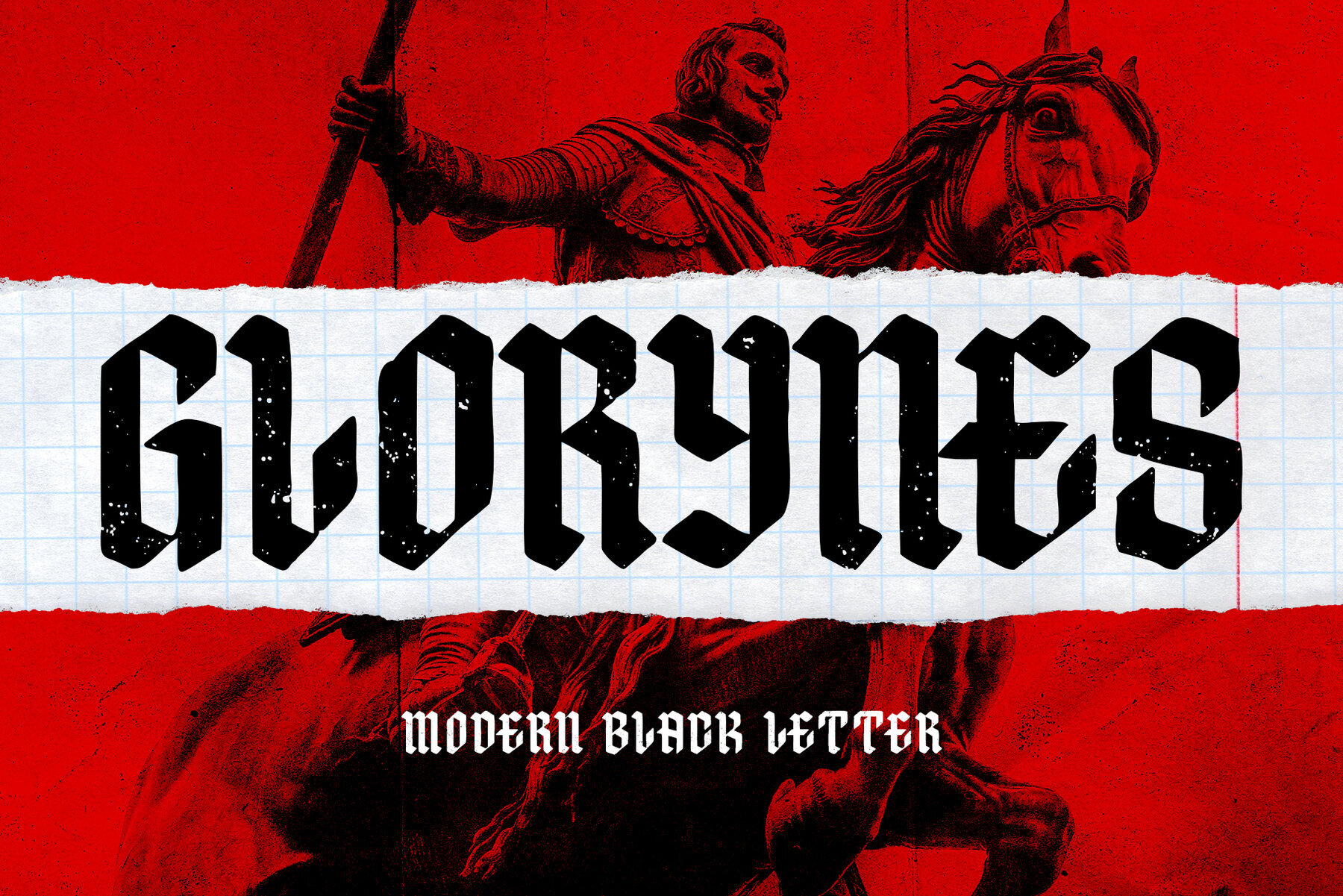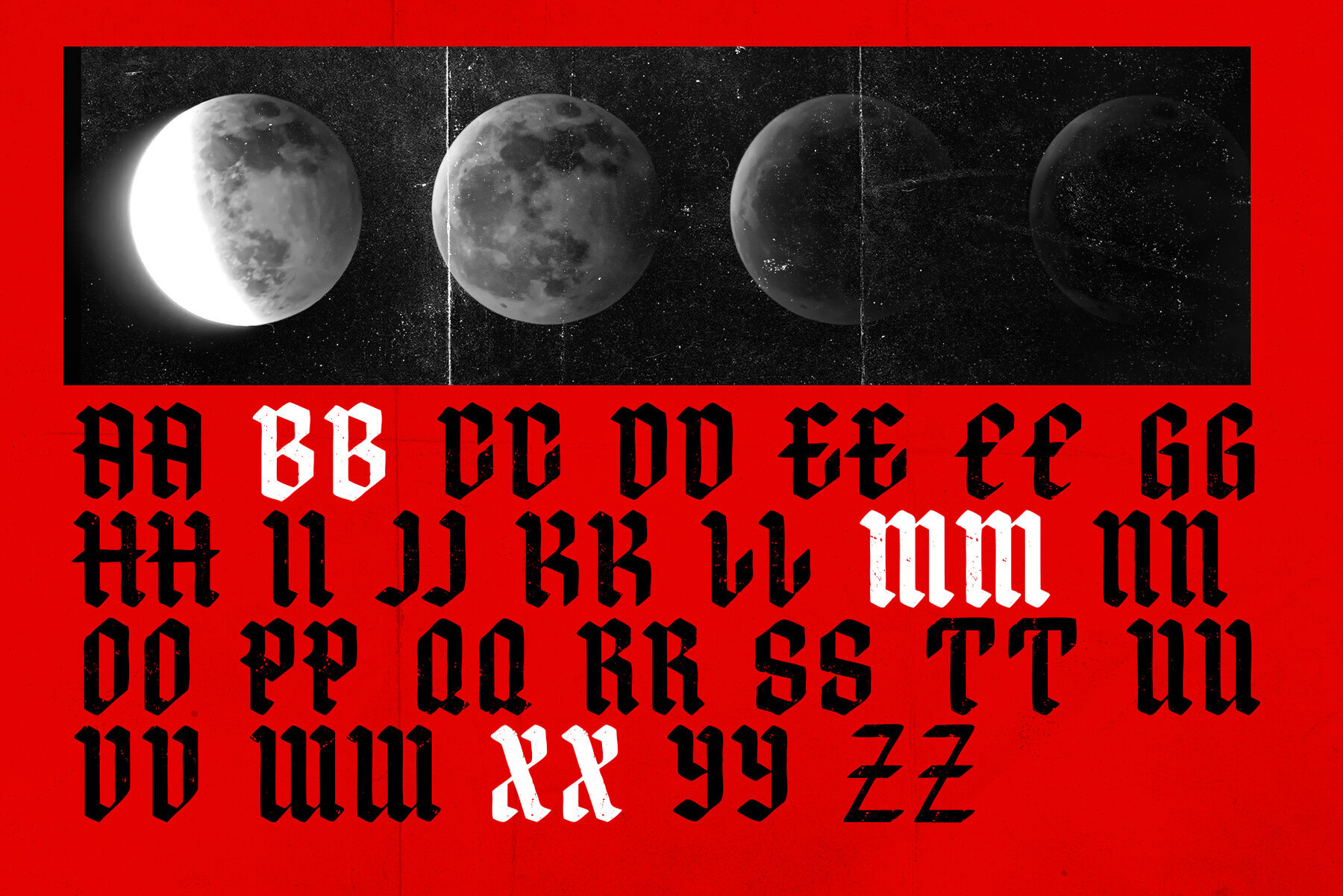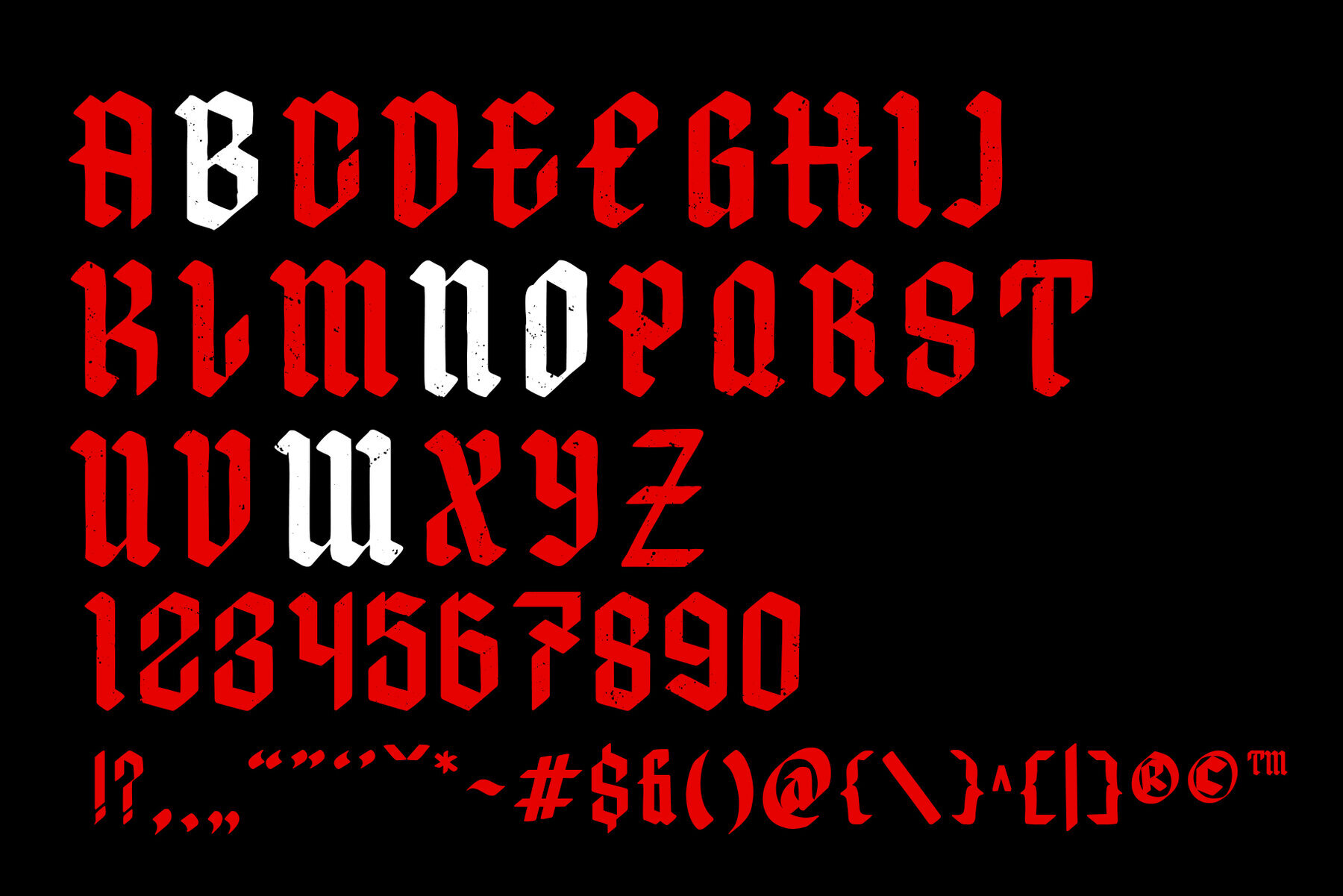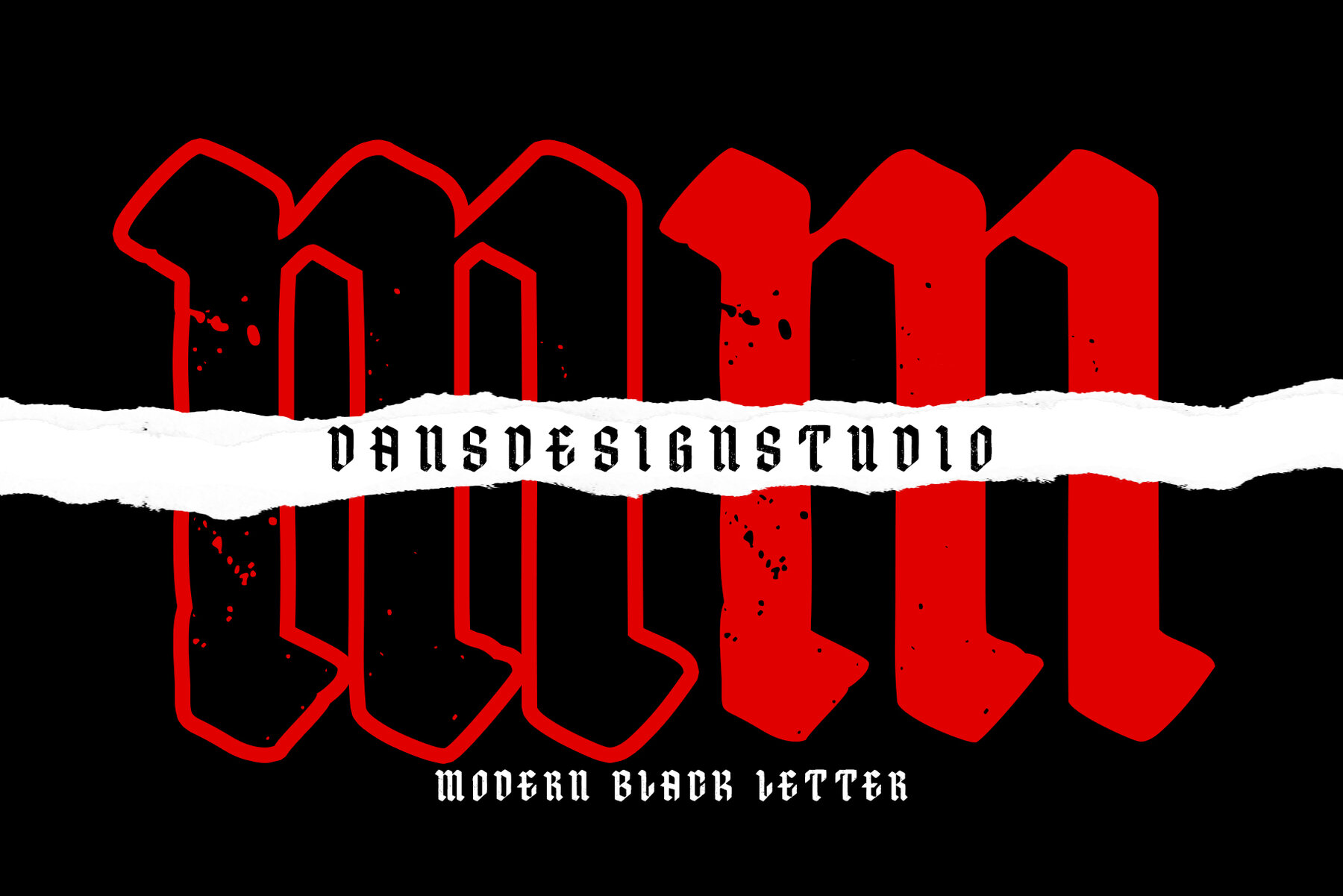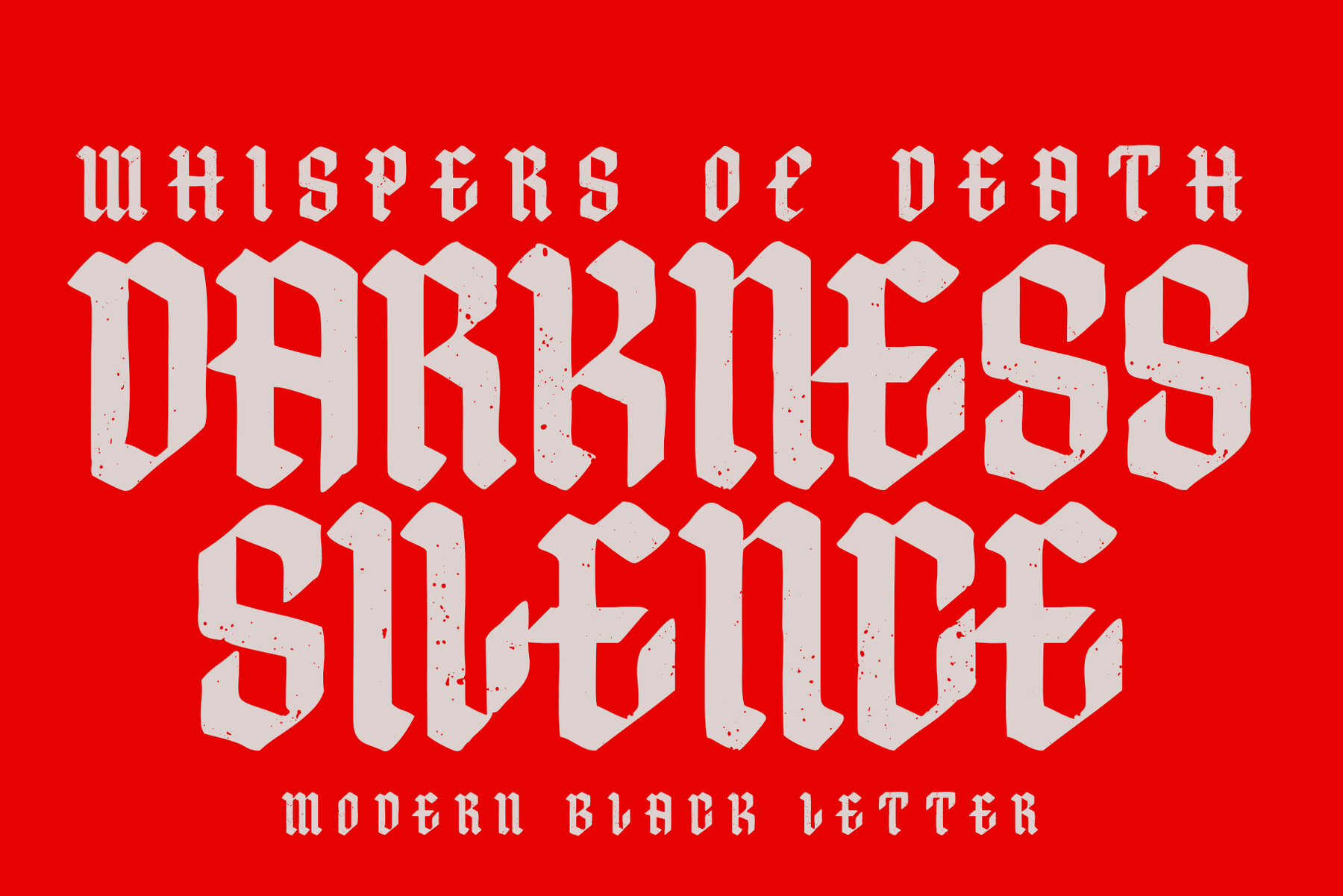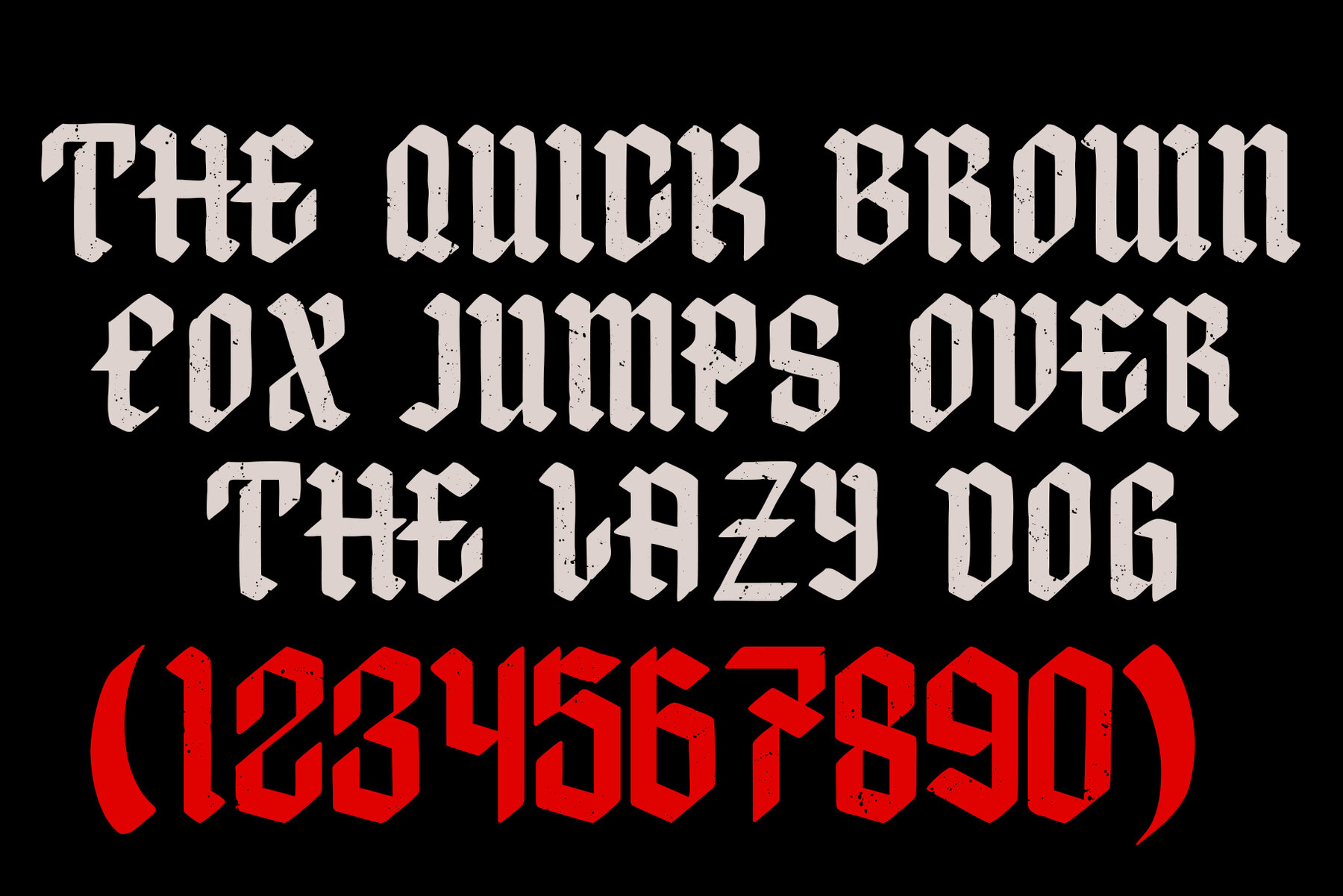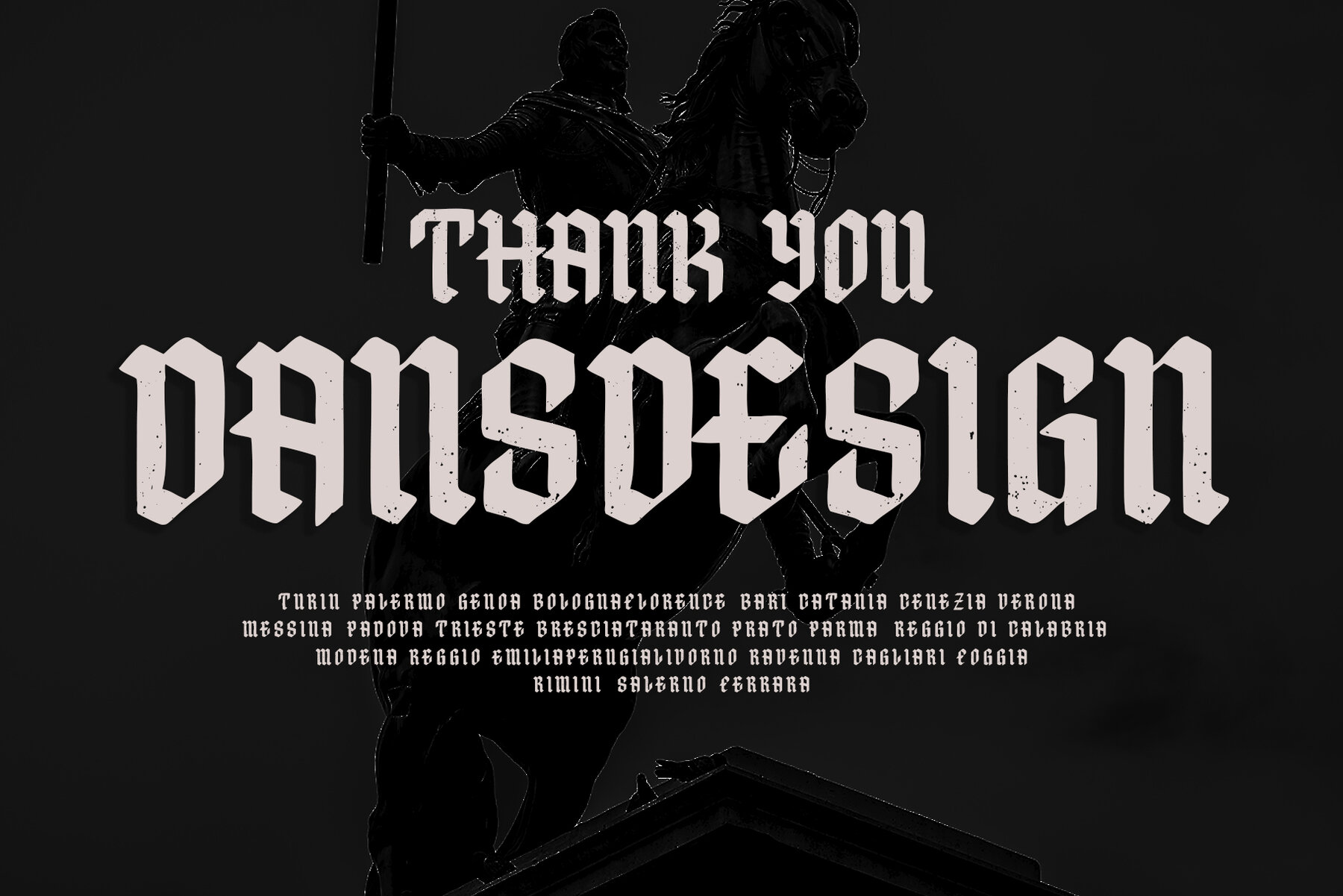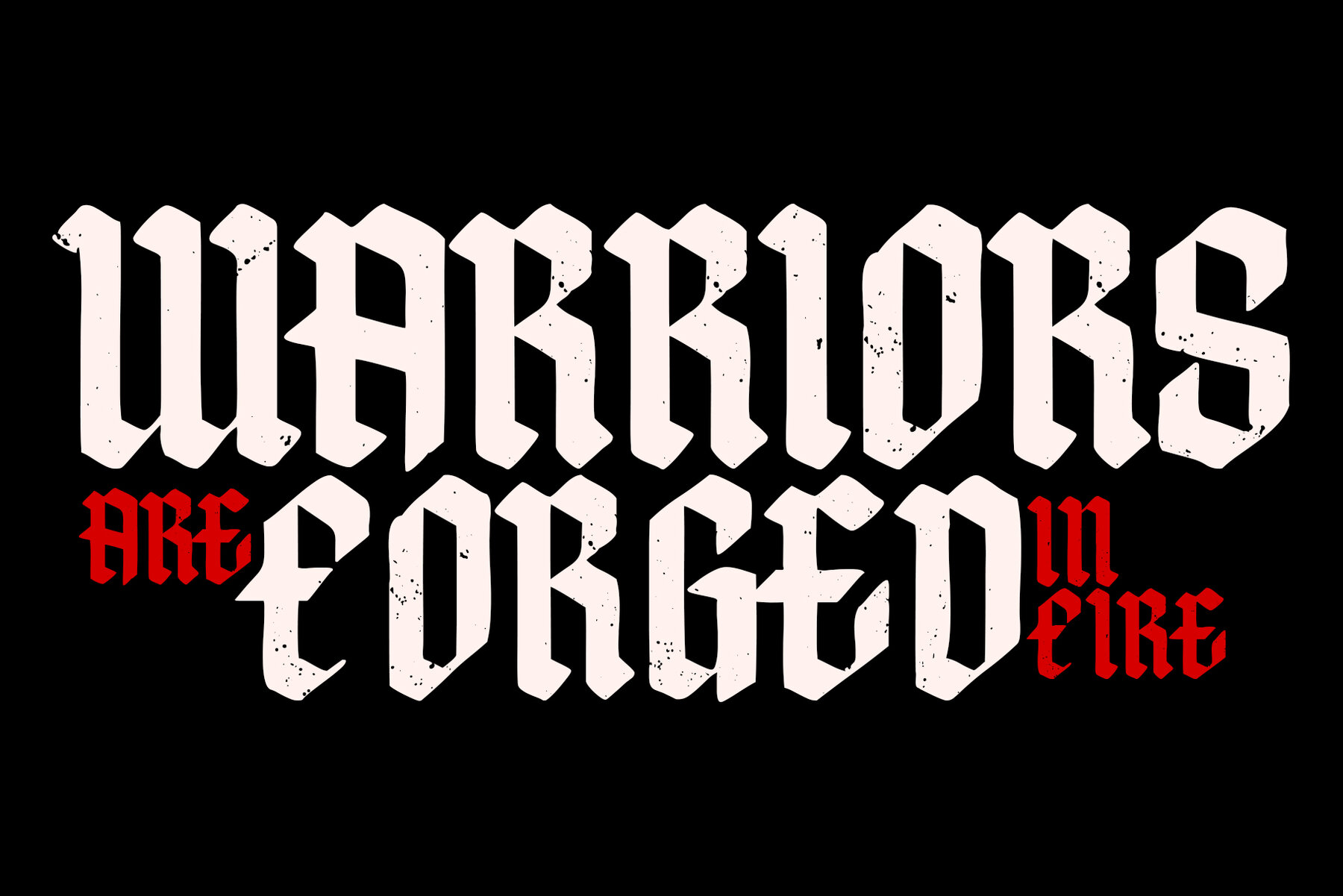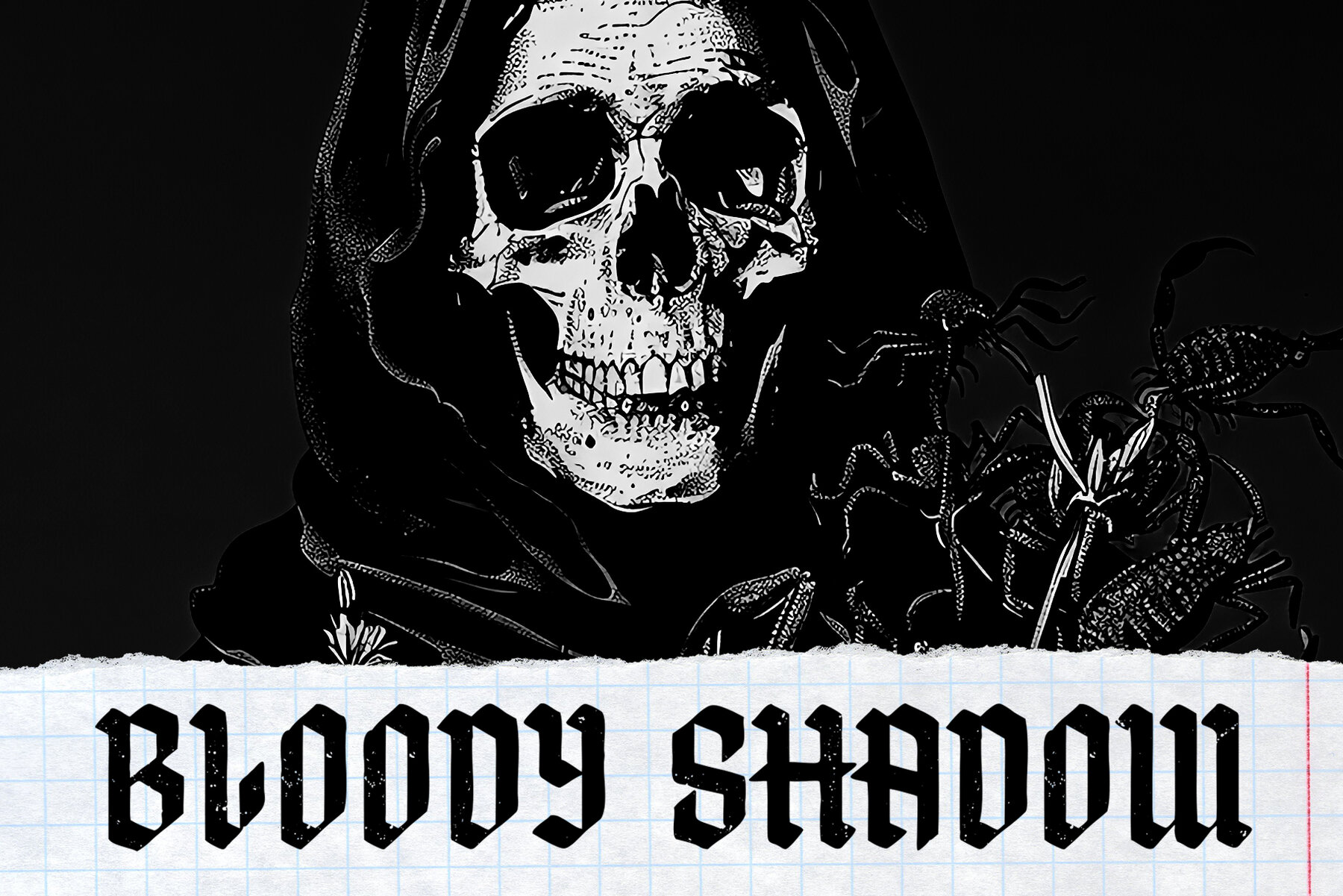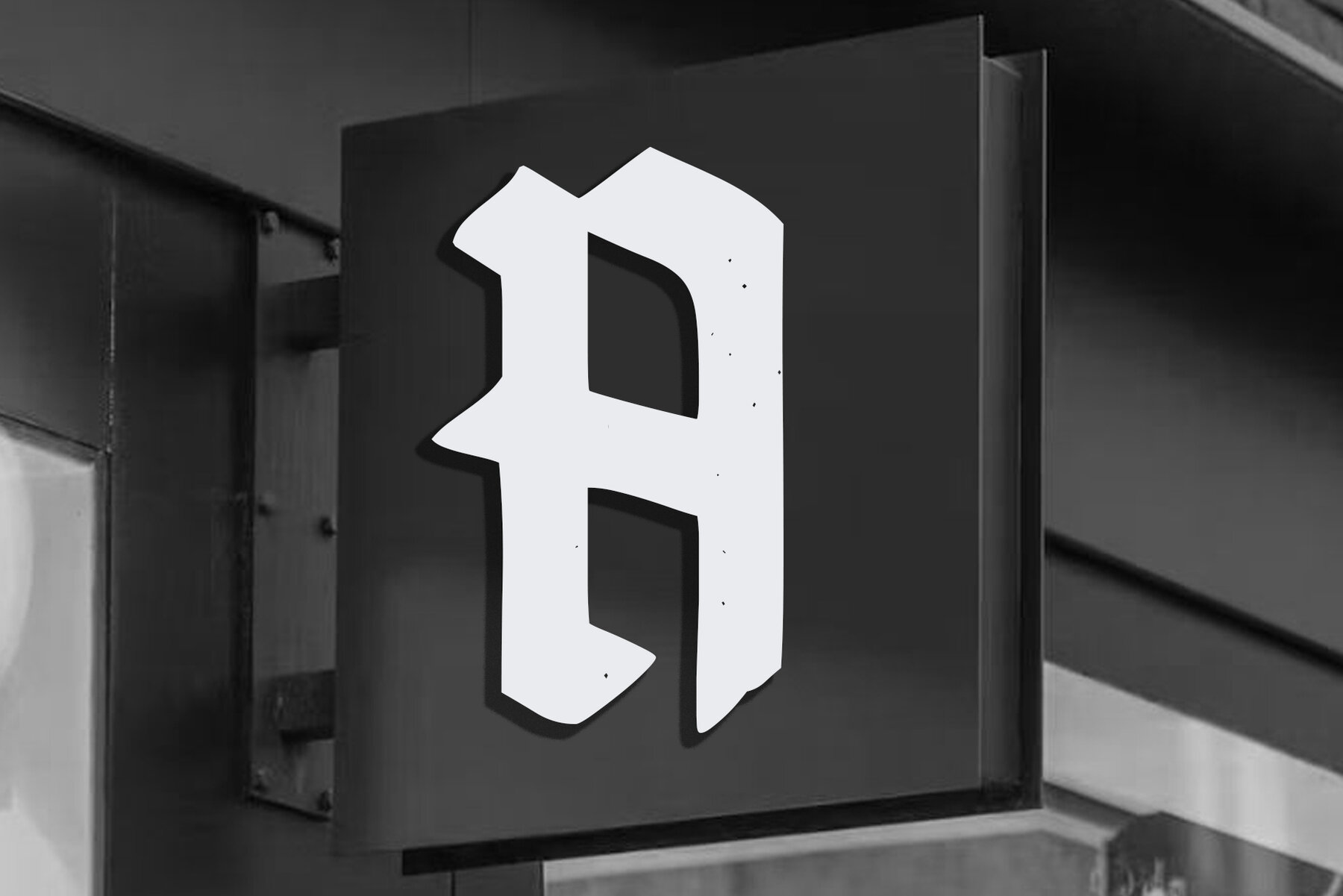
Glorynes Font
GLORYNES
Glorynes by Dandesign Studio commands attention with its powerful, gothic flair and modern edge. Drawing inspiration from traditional blackletter forms, this striking font features razor-sharp strokes, intricate ornamental designs, and assertive letterforms that perfectly suit any display requirement. Whether you're creating metal band logos, music album covers, or tattoo studio branding, Glorynes delivers an authentic dark aesthetic that elevates the style of streetwear designs, horror movie posters, and vintage-inspired artwork. This font is also ideal for adding a retro urban vibe to your creative projects.Glorynes: Bold Gothic Elegance